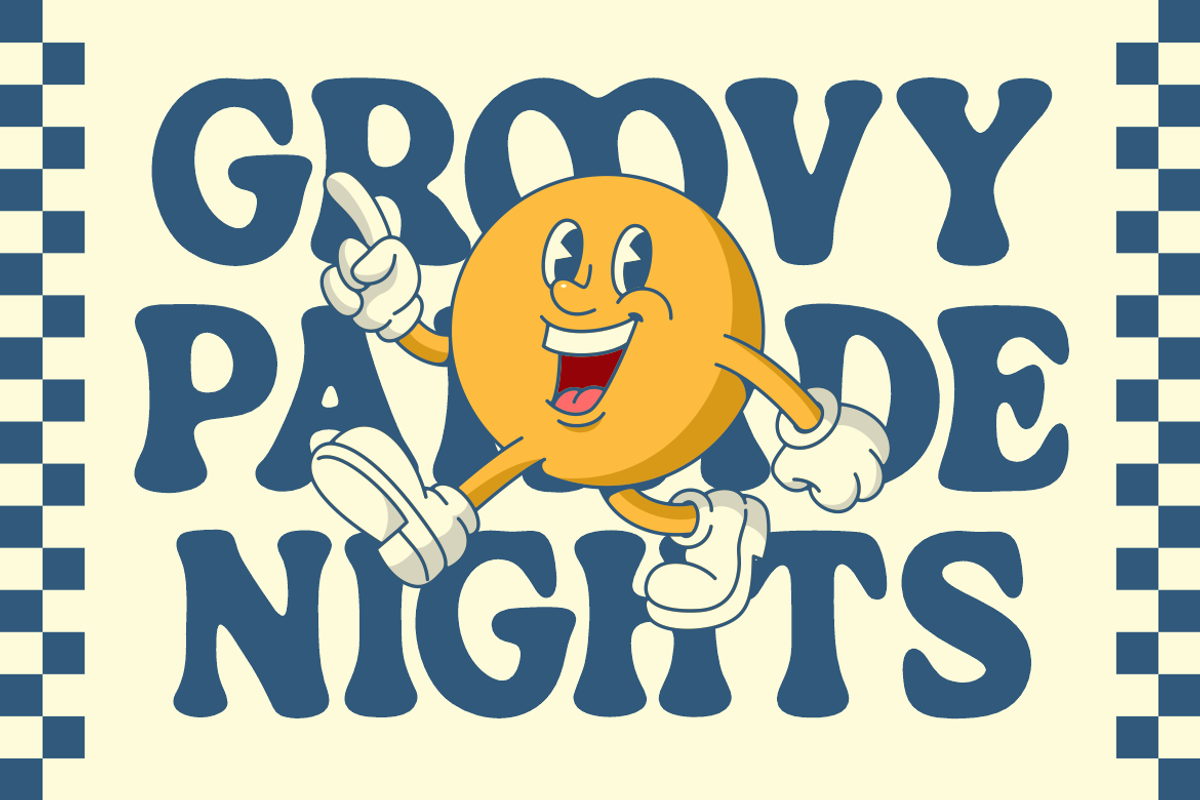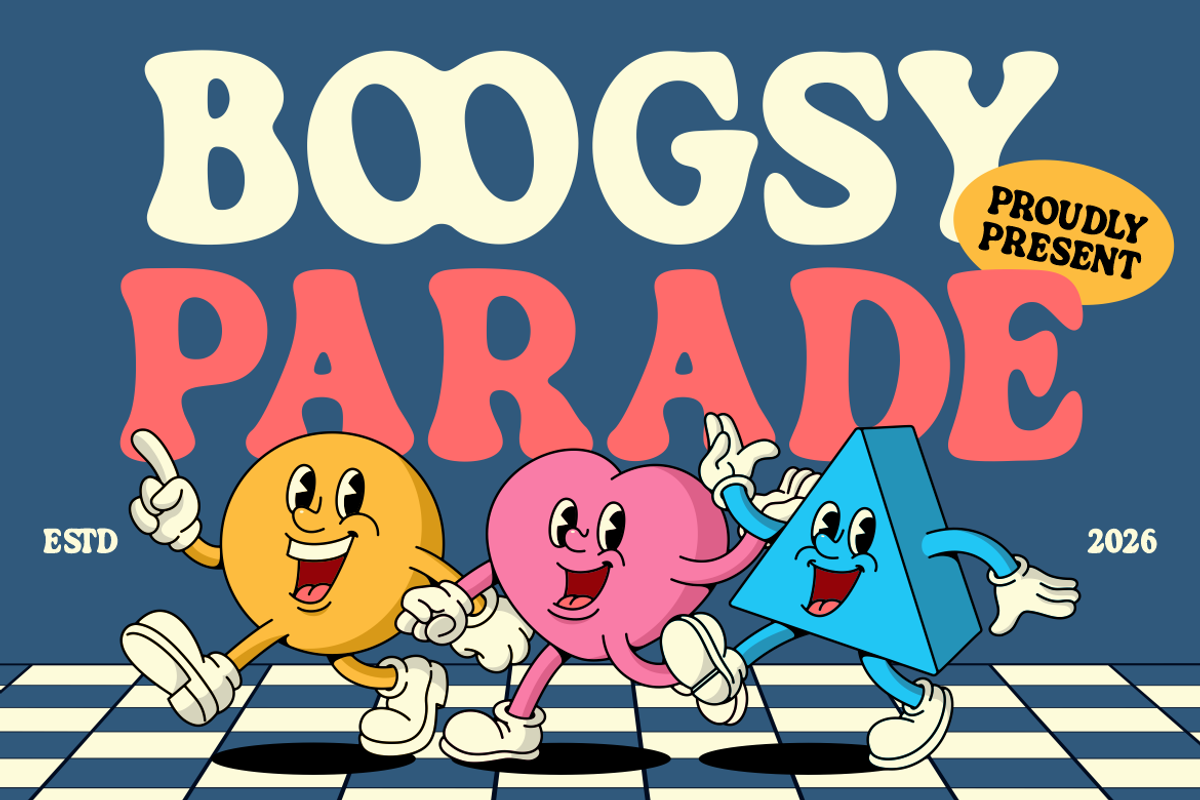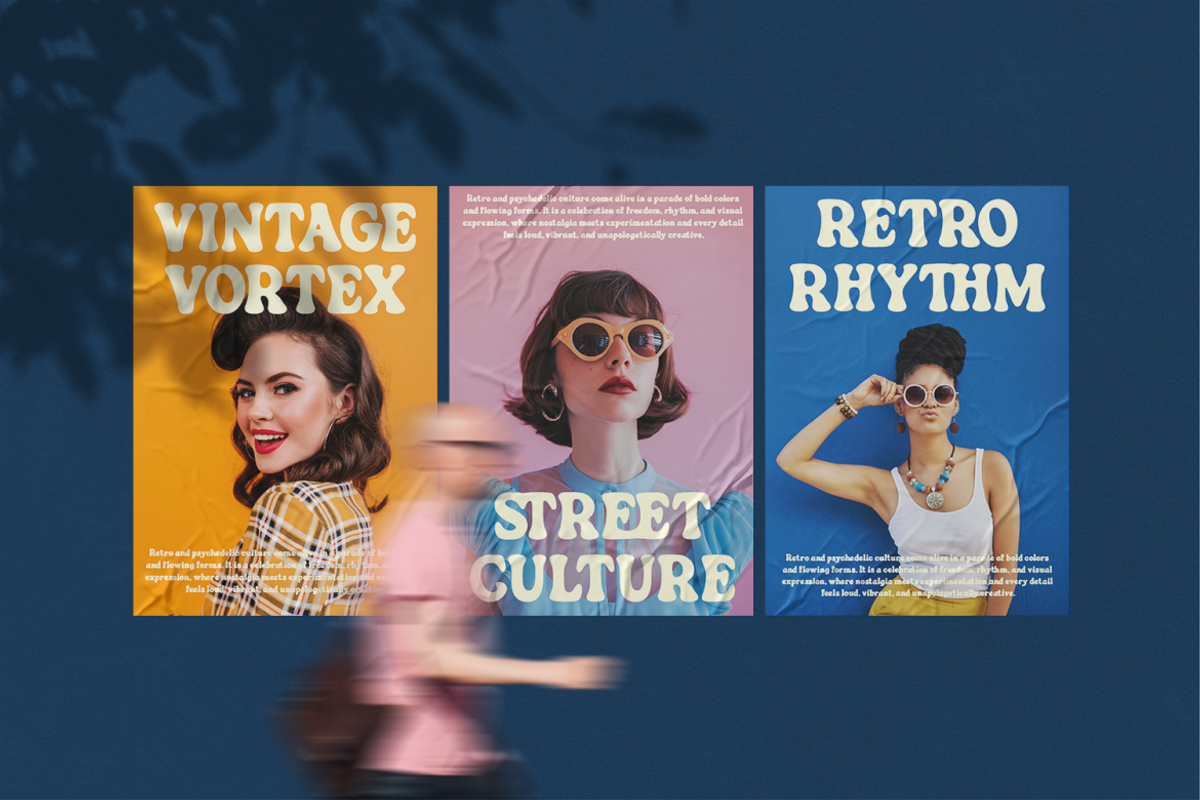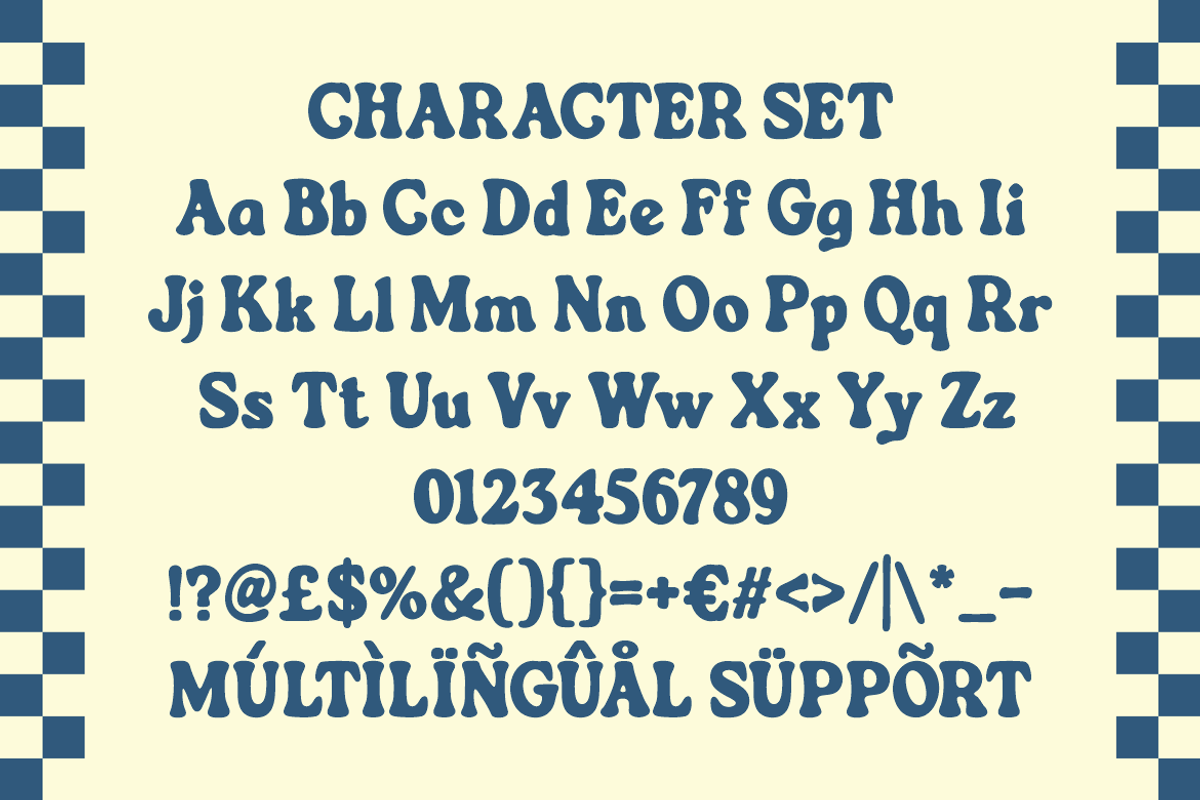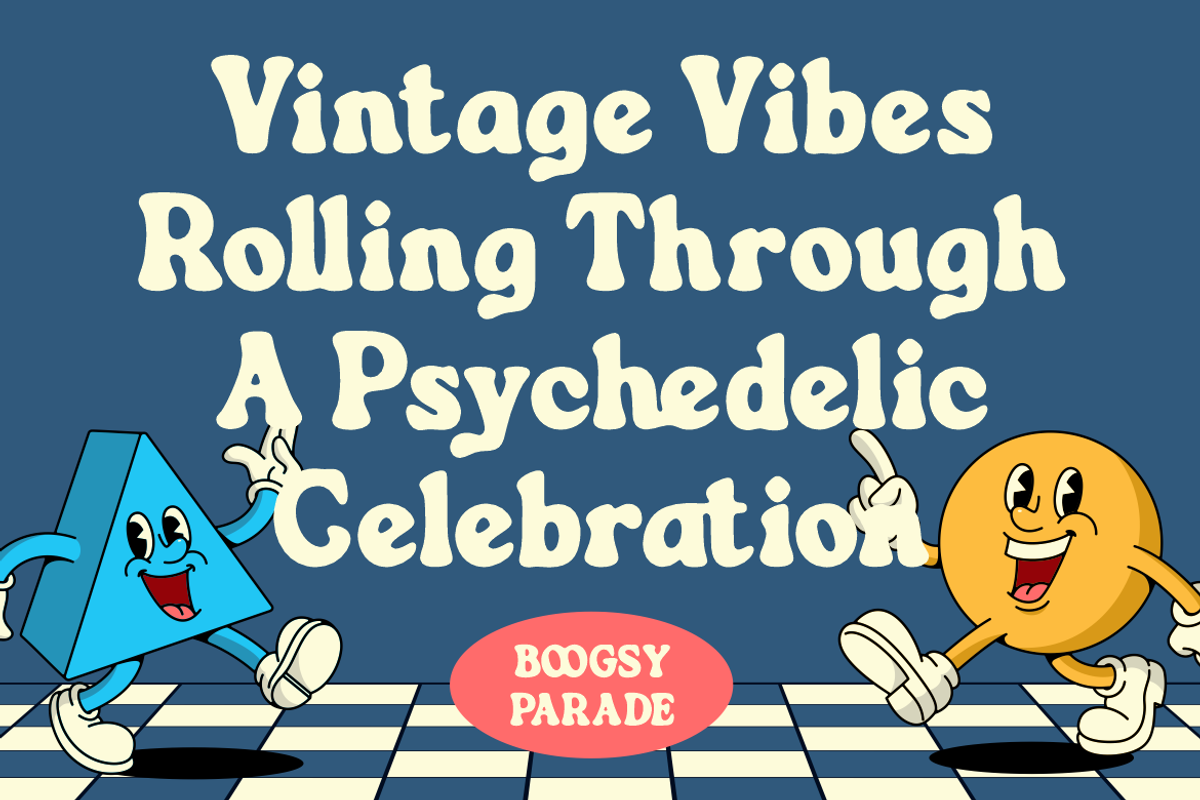
Boogsy Parade Retro Psychedelic Font
Boogsy Parade Retro Psychedelic Font is a bold display typeface inspired by retro and psychedelic design culture. The letterforms feature thick, rounded strokes with soft and inflated shapes. Each character appears wide with uneven contours that create a fluid and organic rhythm. The structure leans toward playful distortion while maintaining clear readability. Rounded terminals and bulbous curves give a friendly and expressive personality. Stroke weight stays heavy across all characters, forming a strong visual presence. Boogsy Parade Retro Psychedelic Font blends vintage groovy aesthetics with modern display clarity. The design communicates fun, nostalgia, and creative energy. It works well for logo design, retro branding, and expressive headline typography.
The playful and bold structure creates an energetic tone for creative design projects. Designers can use this typeface for logos, posters, and branding with retro or psychedelic themes. It fits perfectly for music events, creative festivals, and vintage inspired businesses. The soft shapes and wide proportions support eye catching headlines and titles. Boogsy Parade Retro Psychedelic Font also works well for magazine covers, book titles, packaging labels, and promotional graphics. It suits sticker designs, greeting cards, and creative advertising layouts. Businesses such as retro cafes, creative studios, music brands, and entertainment projects can build strong visual identities using this font.